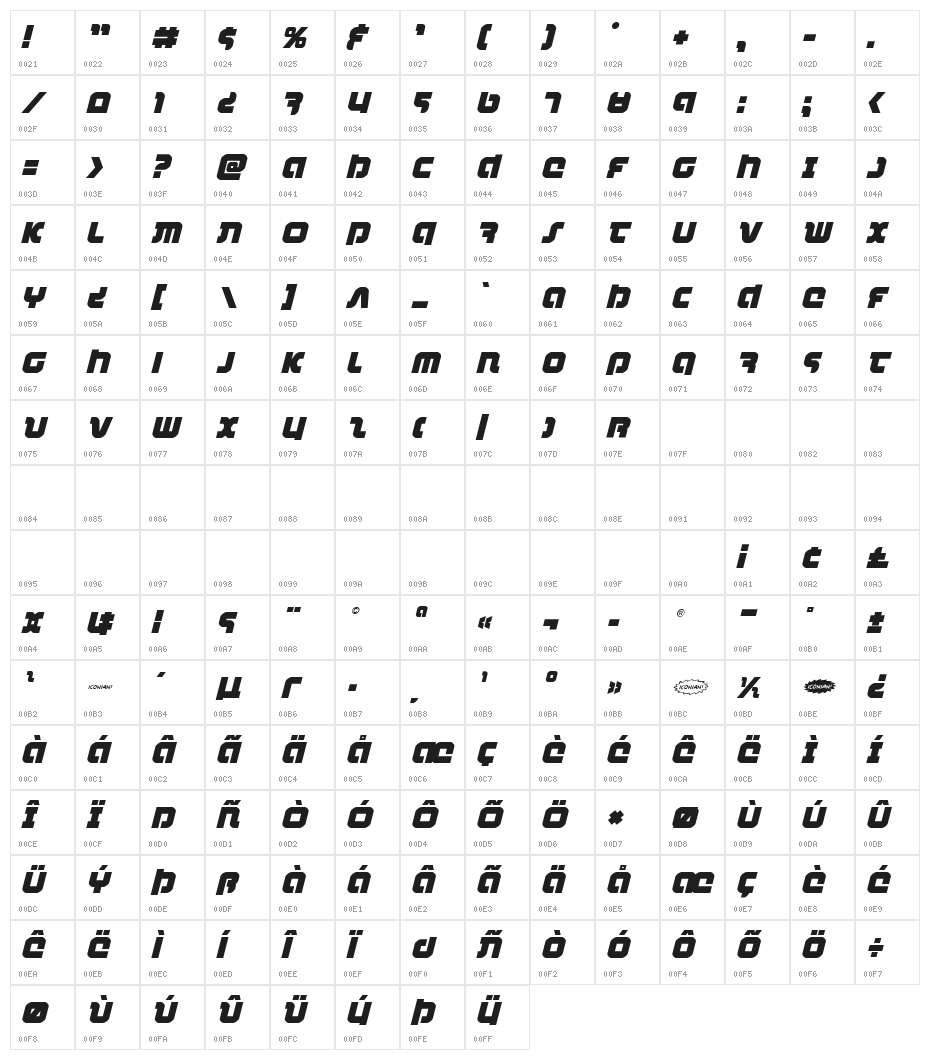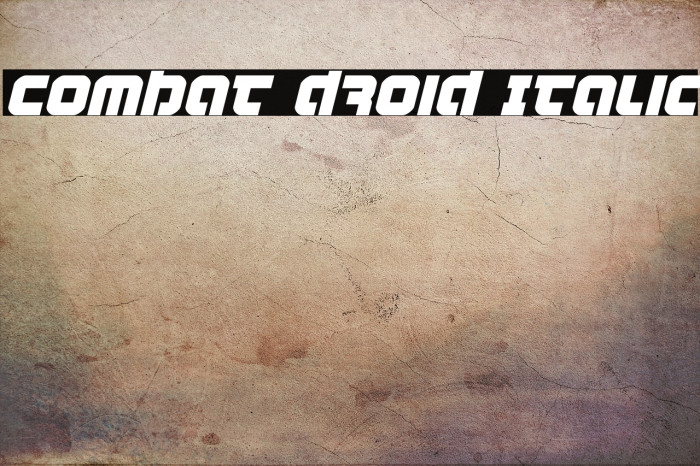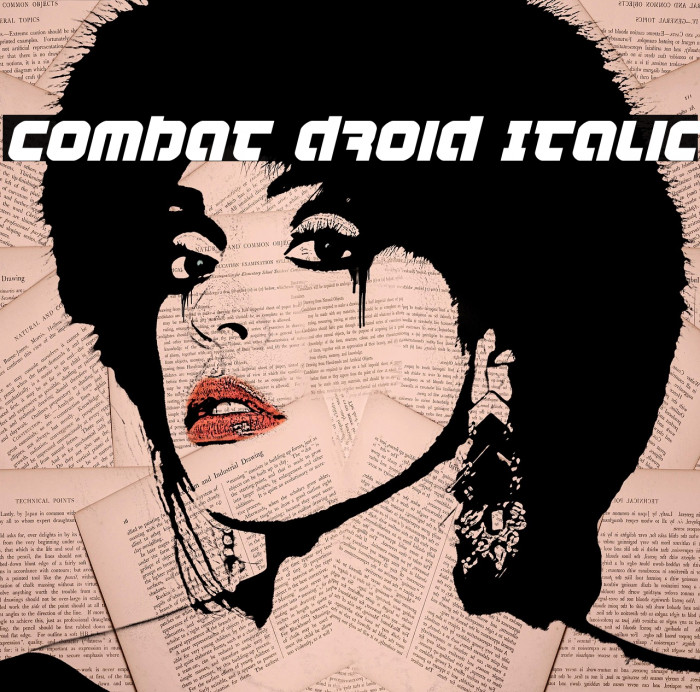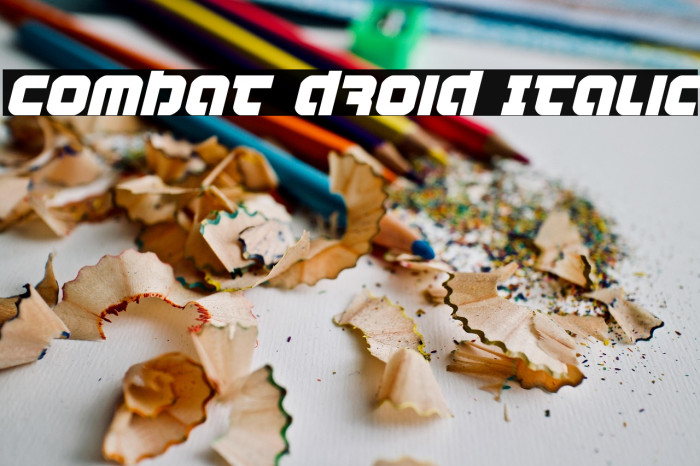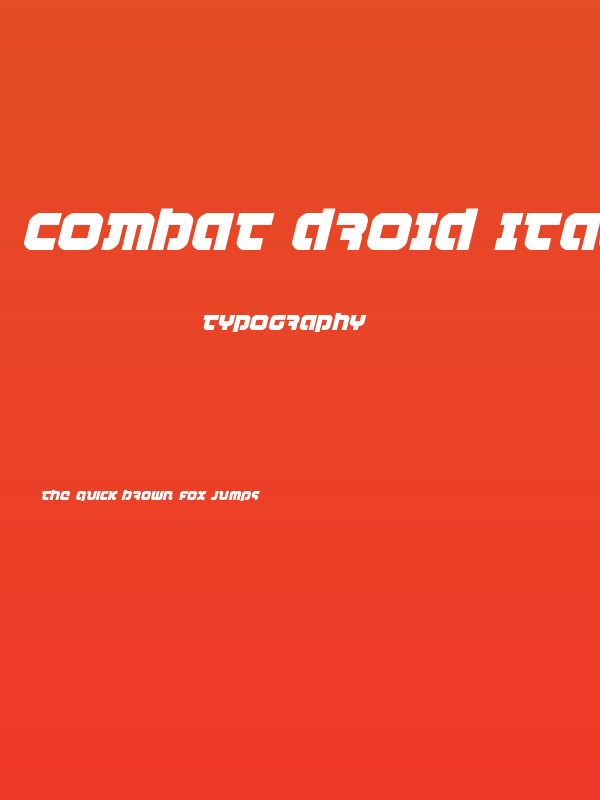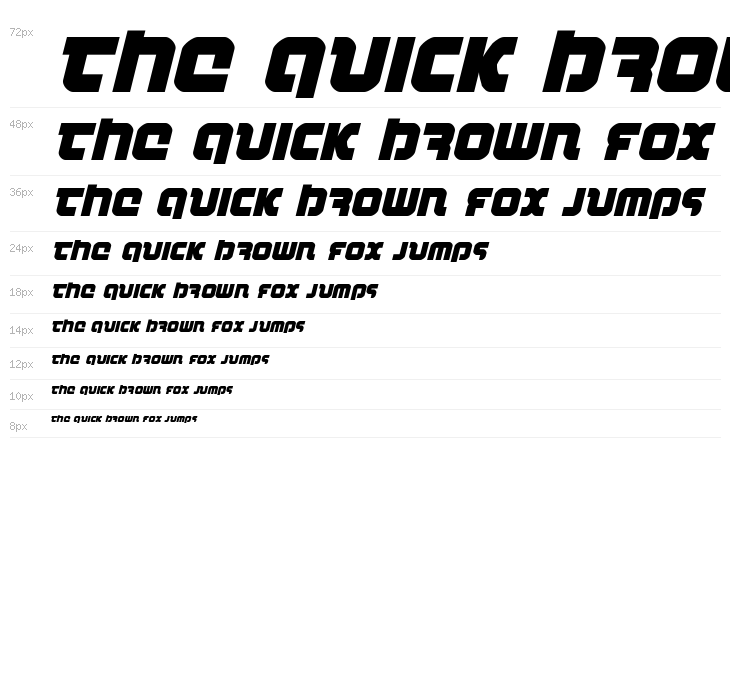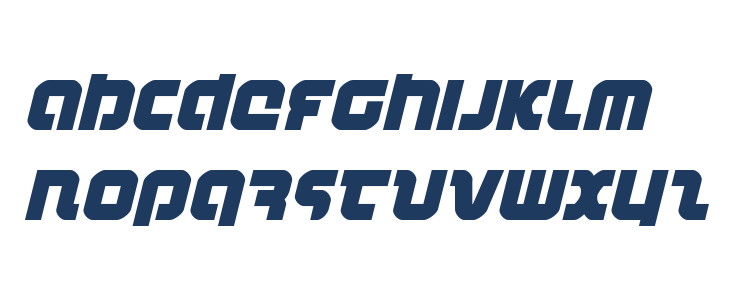
Combat Droid Italic Font
Combat Droid Italic Description
This font features a bold, futuristic design with a strong emphasis on angular shapes and a forward-leaning italic style. The characters are uniformly thick, giving them a robust and powerful appearance. The angular cuts and geometric forms create a sense of movement and dynamism, making it ideal for projects that require a modern and edgy look. The uppercase and lowercase letters maintain a consistent style, with the lowercase being slightly more compact. Numbers and special characters follow the same design principles, ensuring uniformity across all text elements. The font's unique style is suitable for creating impactful headlines, logos, and branding materials that need to stand out.
| Proposed Projects | Ideal for sci-fi themed designs, technology branding, video game titles, and modern advertising. |